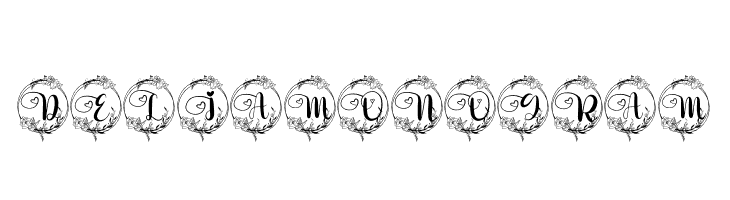
A decorative font with floral frames around each character, ideal for elegant designs.
An ornate script font with floral monogram frames, exuding vintage elegance.